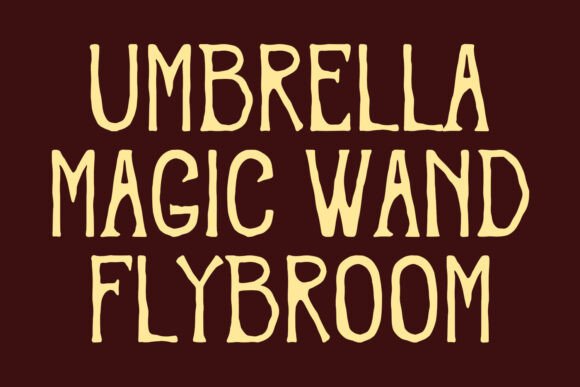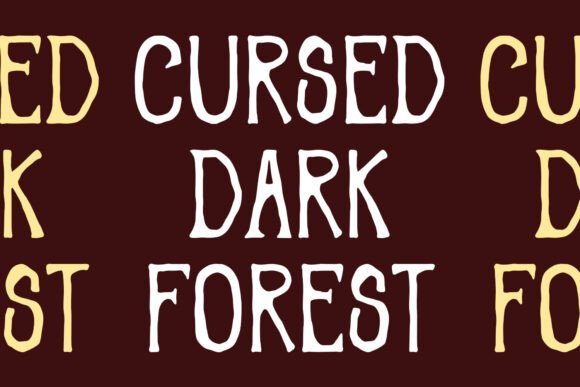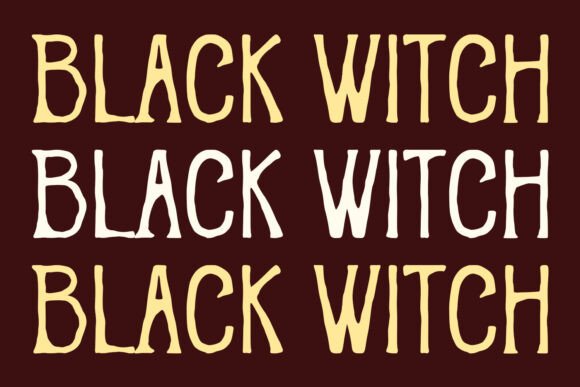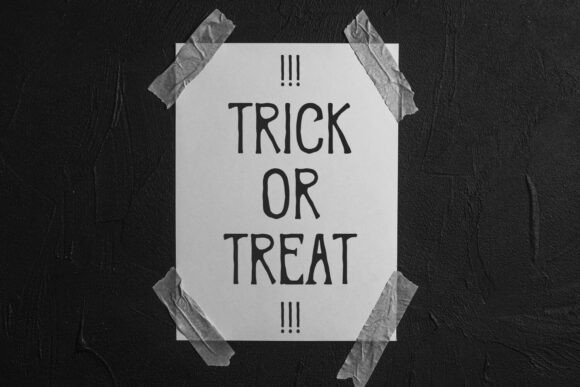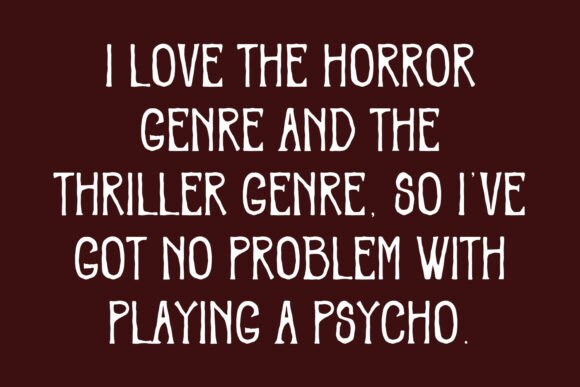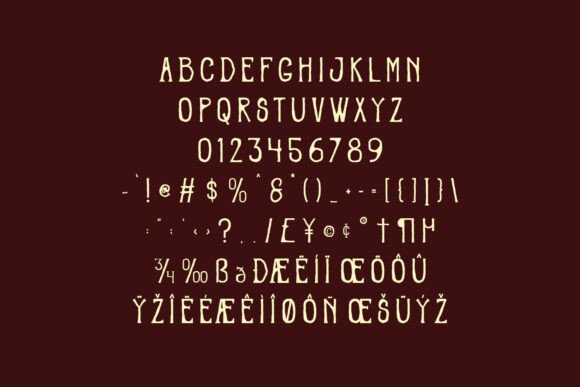
Introduction to Lidomna Font
Have you ever stared at a blank canvas, searching for the perfect font to bring your creative project to life? That’s exactly what happened to me when I stumbled upon the quirky Lidomna Font. Its unique blend of hand-crafted imperfections and retro personality had me hooked from the start. I knew I had to dive deeper and explore the world of this charming font.
Lidomna Font is more than just a font – it’s a design resource that adds a touch of eccentric vintage charm to any project. With its uneven lines and organically styled forms, it’s perfect for posters, indie branding, packaging, and more. And the best part? It’s a high-quality font that’s available for free download, making it a valuable addition to any designer’s toolkit.
Key Features of Lidomna Font
- Designed to meet the needs of designers and artists working on various creative projects, from print to digital media.
- Features a unique, modern aesthetic that is perfect for adding a touch of elegance to any design.
Honest Review: Lidomna Font
As a designer, I’m always on the lookout for high-quality fonts to enhance my creative projects. The Lidomna Font caught my eye with its elegant and sophisticated design. Here’s my take on this design resource.
- ✨ Beautifully crafted letterforms with intricate details that add a touch of sophistication to any design.
- ✨ Wide range of applications, from headings to body text, making it a versatile addition to my design arsenal.
- ⚠️ Limited character set, which may not be ideal for projects that require a wide range of languages or special characters.
Overall, I’m impressed with the Lidomna Font’s design quality and versatility. While it may have some limitations, it’s a great addition to any designer’s toolkit, especially for projects that require a touch of elegance and sophistication. With a free download option, it’s definitely worth checking out.